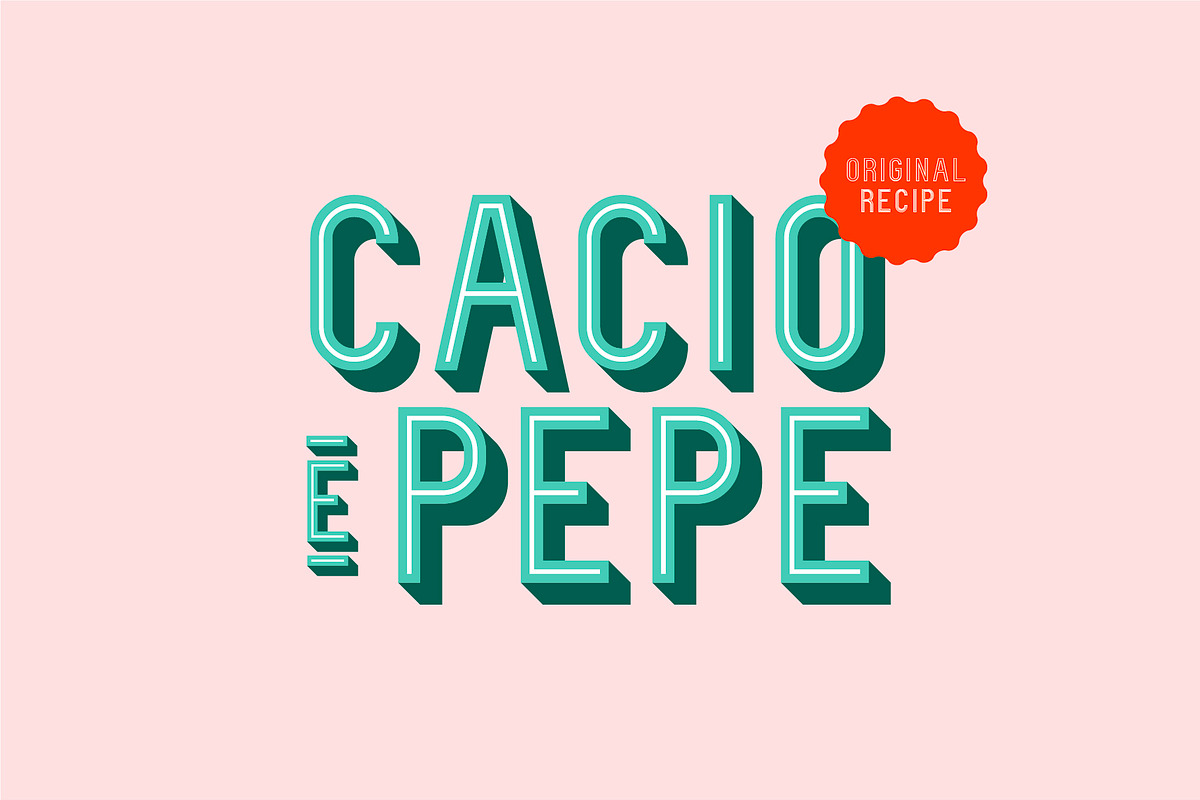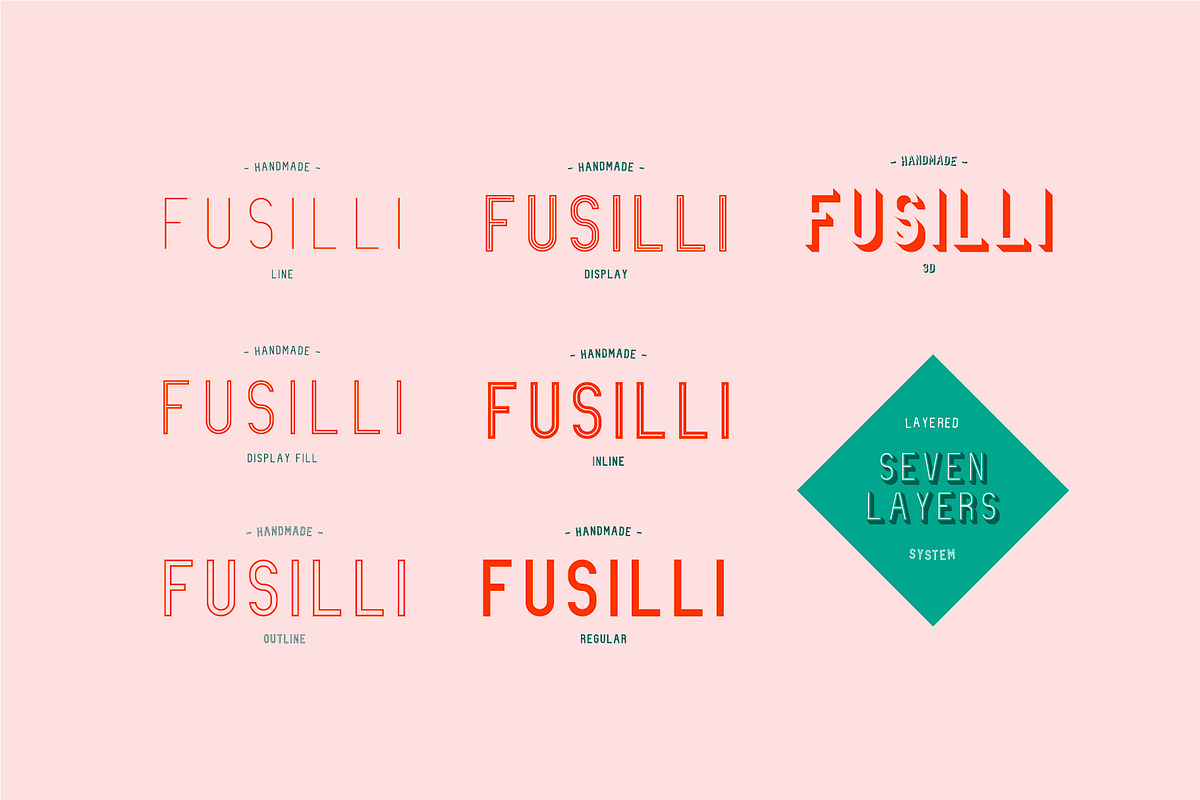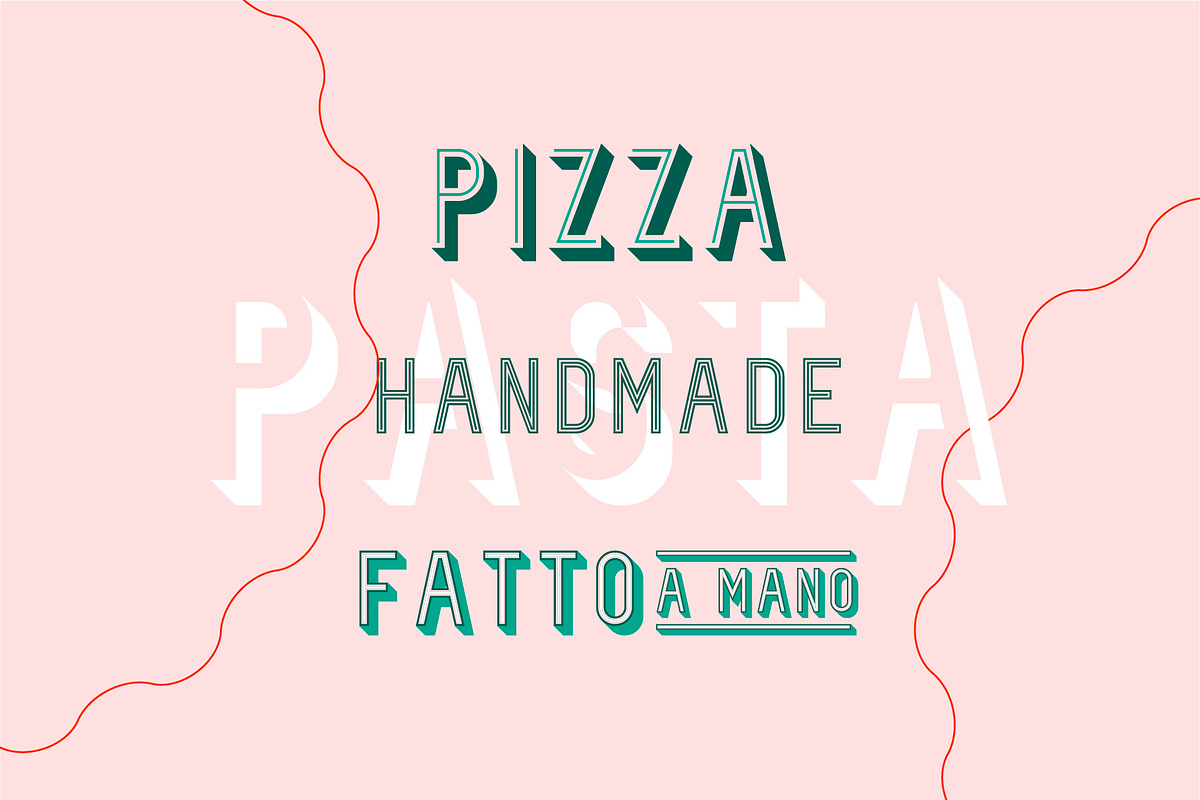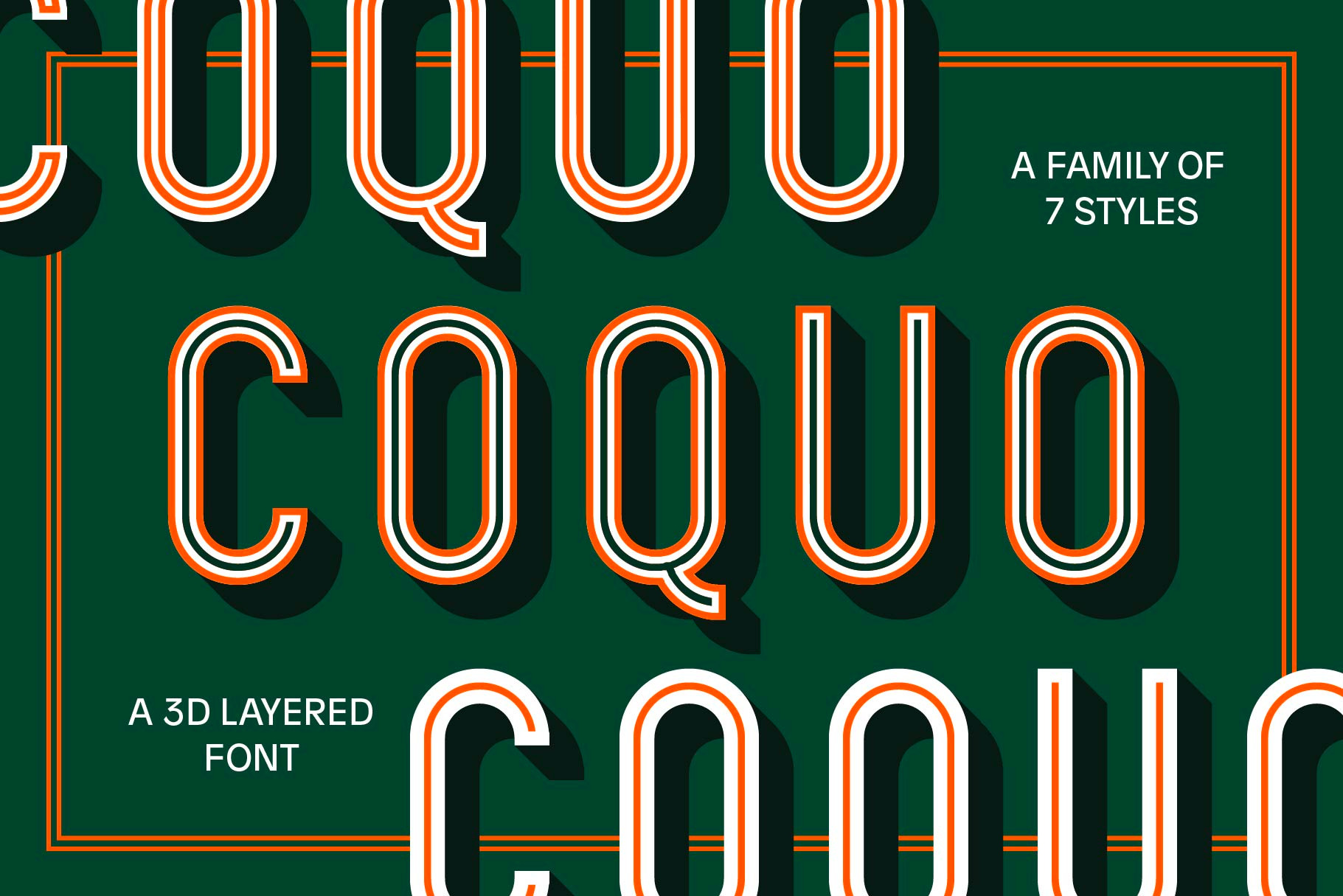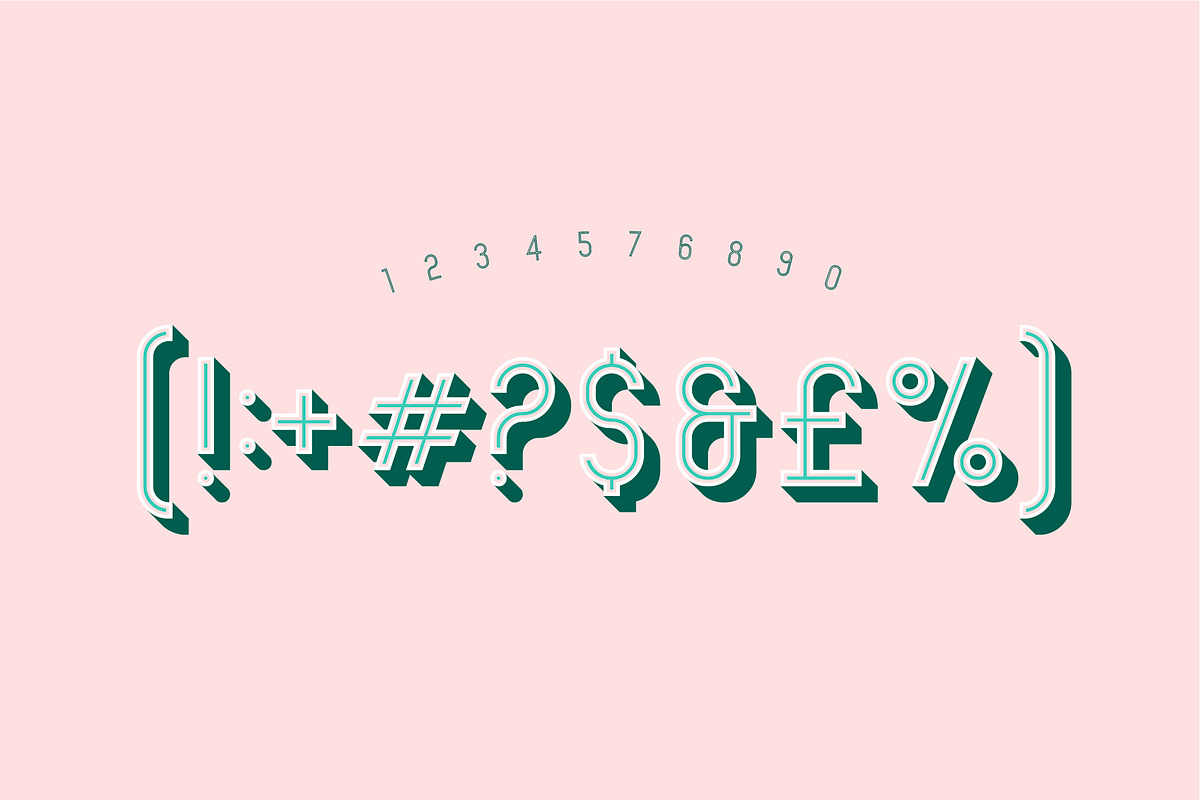
Coquo Layered Font
A layered font with unlimited possibilities. Perfect for that retro logo, storefront or menu design. The condensed style allows you to stack however you want. See more on Instagram @studiobayley